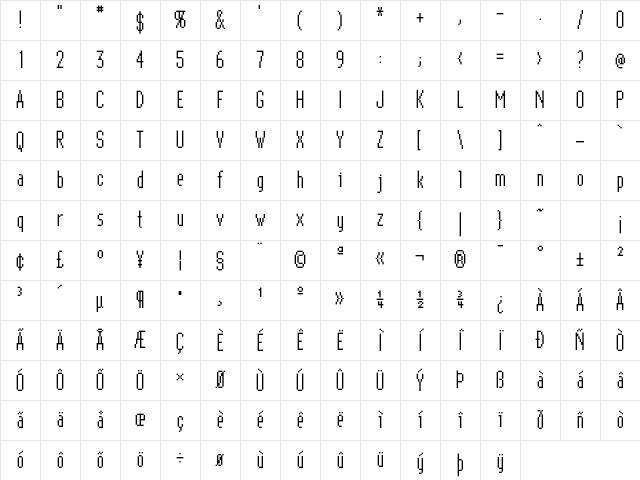
Complete NewGenevaNineICG Point glyph index. Displaying only characters natively supported by NewGenevaNineICG Point font.
NewGenevaNineICG is a composed and adaptable typeface that performs quietly and consistently across a wide range of design contexts.